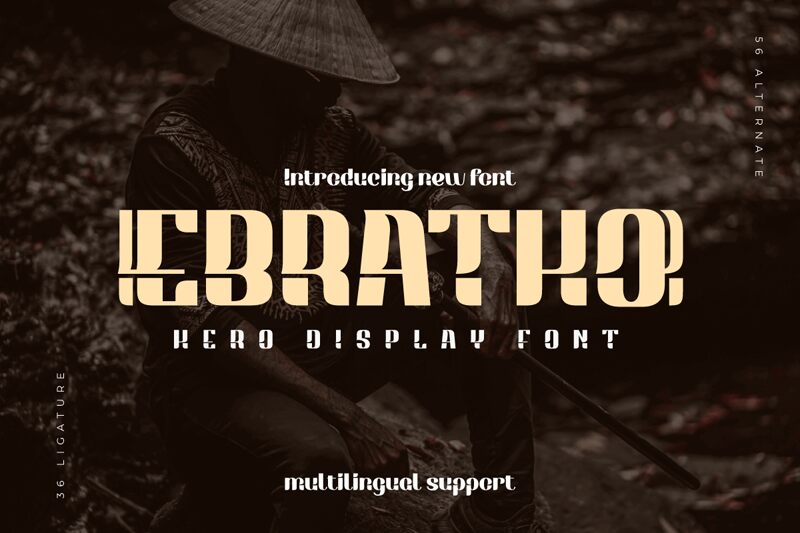
Ebratho font family by twinletter is a free font family featuring two fascinating font styles. The font has every futuristic element required to take your design project to the next level. You can create a modern and sleek visual experience for the readers of your text by combining dynamic shapes and impactful structures. Ebratho combines a geometric letterform with bold and playful touches that make the font’s overall look very versatile when it comes to practical use across various platforms.
Use Ebratho to realize your vision for advertisements, branding materials, websites, product packaging, social media designs, or sale banners. Fonts from this family are also appropriate for motion graphics, poster designs, signs, and notice boards. As short-text typefaces, the usage envisioned for the fonts is application in titles mostly in places where the aim is maximum engagement and the strongest possible visual impact.